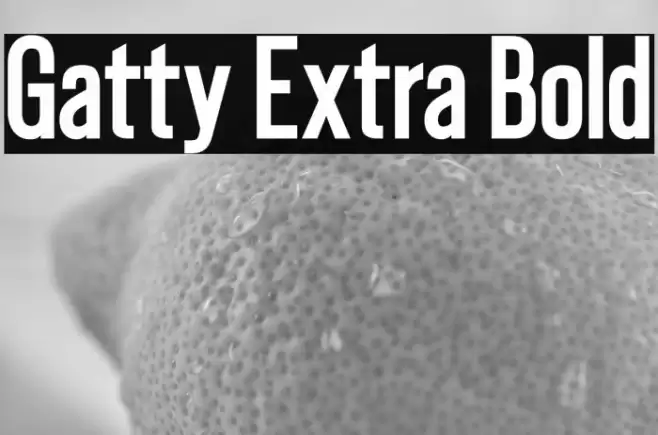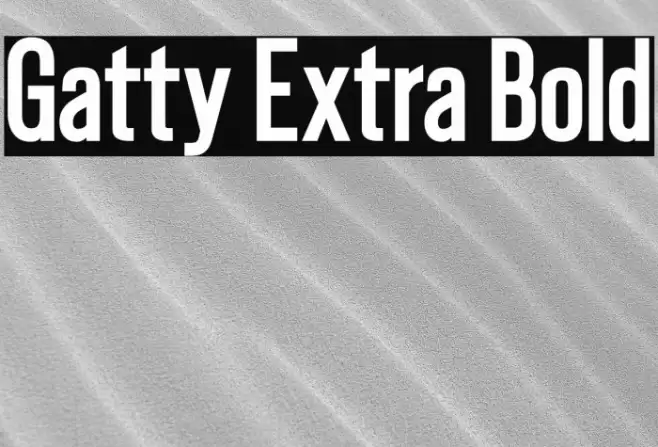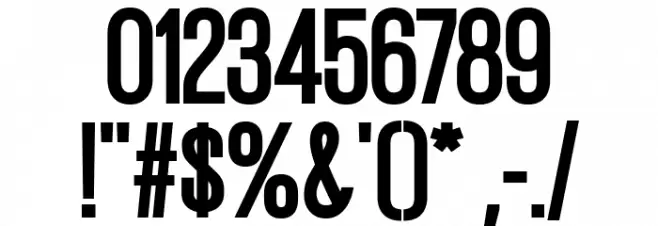
Gatty Extra Bold Font
Gatty Extra Bold Description
This font is characterized by its bold and impactful presence, featuring thick strokes and a strong geometric structure. The uppercase letters are tall and commanding, while the lowercase letters maintain a consistent weight, ensuring readability. The numerals are equally bold, matching the overall aesthetic. Special characters are designed with the same boldness, making them stand out. The font's design is clean and modern, with a slight emphasis on verticality, making it suitable for attention-grabbing headlines and titles.
A bold, modern font with strong geometric shapes and thick strokes from Regular fonts.
- Proposed Projects: Ideal for branding, advertising, posters, and any project requiring a strong visual impact.